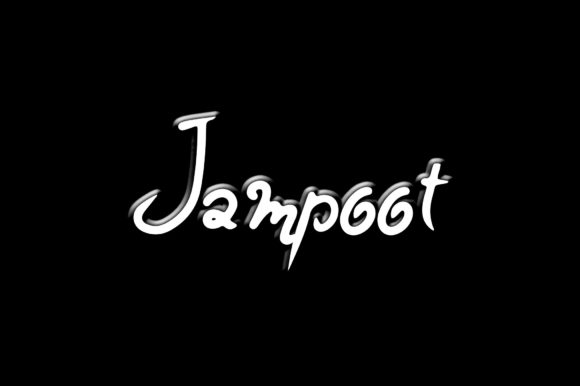
Unleash your creativity and dive into the enchanting world of Jampoot Script, a captivating handwritten font that dances with charm and personality. Designed to evoke a sense of warmth and authenticity, Jampoot is an exquisite choice for adding a unique touch to your digital creations.
With its free-flowing strokes and playful curves, Jampoot beautifully captures the essence of hand-lettering, creating a personal and inviting ambiance in your designs. Whether you're crafting heartfelt chalkboard quotes, designing personalized teaching materials, or adding a touch of whimsy to your branding, Jampoot will effortlessly elevate your projects to new heights.
Indulge in the versatility of Jampoot's diverse character set, meticulously crafted to offer endless possibilities for creative expression. Express your individuality through stunning monograms, where each letter intertwines harmoniously, forming a captivating visual masterpiece. Let your imagination soar as you create eye-catching logos, social media graphics, or website designs that radiate warmth and authenticity.
Embrace the boundless potential of Jampoot, a font that seamlessly adapts to a myriad of creative endeavors. Its playful nature lends itself perfectly to invitations, cards, and posters, adding a touch of whimsy and delight to every occasion. Unleash your inner artist and explore the endless possibilities Jampoot presents, transforming your digital creations into captivating expressions of your unique style.
Embark on a creative journey with Jampoot, where each letter dances with joy and charm, adding a touch of magic to your digital designs. Dive into the enchanting realm of typography and let your imagination flourish. Discover the boundless potential of Jampoot and witness the transformation of your creative visions into captivating realities.